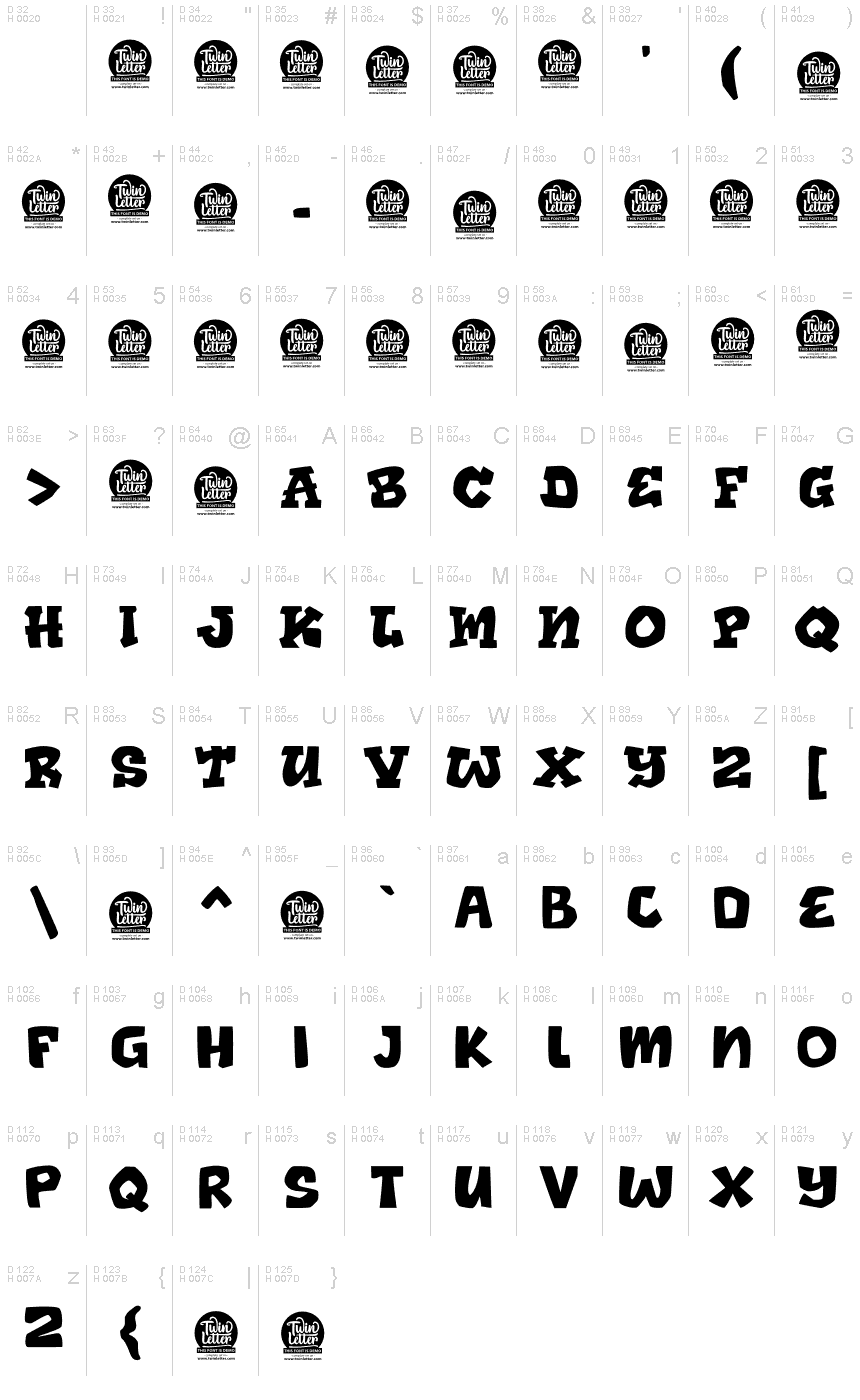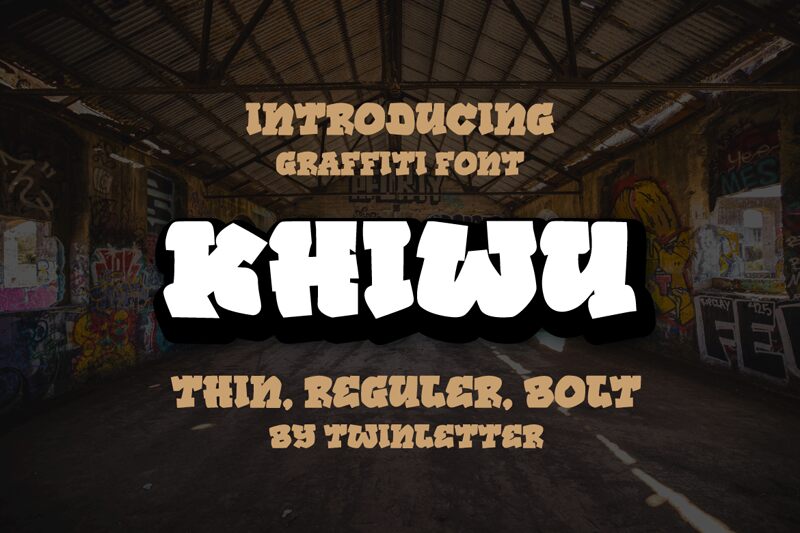
Khiwu Thin is a lovely graffiti display font designed by Rozi of Twinletter.
This is a new font that we created with a graffiti idea in mind. This fonts abstract yet clean blend makes it ideal for special event productions. This typeface will make it easy for you to build diverse projects while still looking attractive and elegant because it has the correct title display, subtitles, and clear text.
This graffiti font is great for product logos, poster titles, headlines, packaging, film titles, logotypes, gorgeous writing, and trendy graffiti designs, among other things.